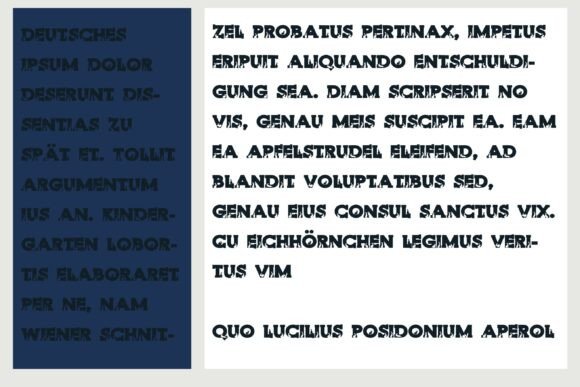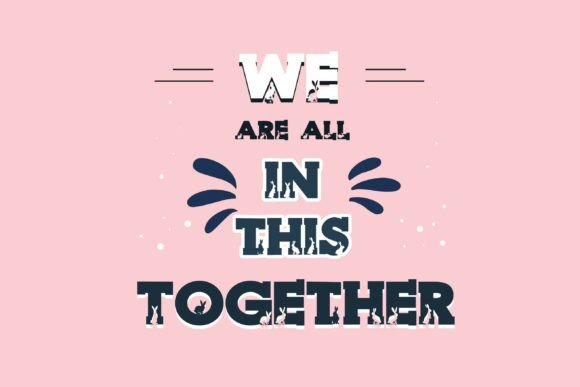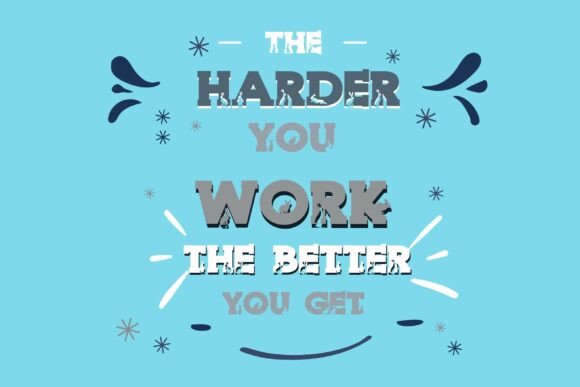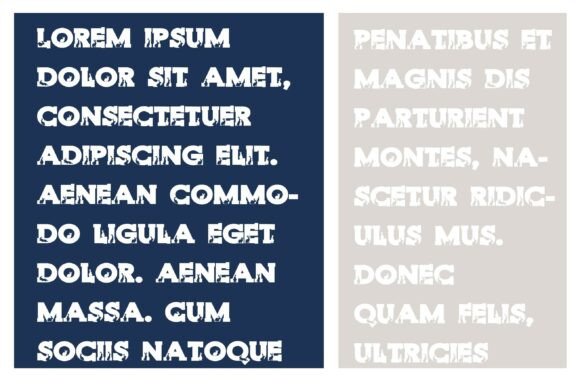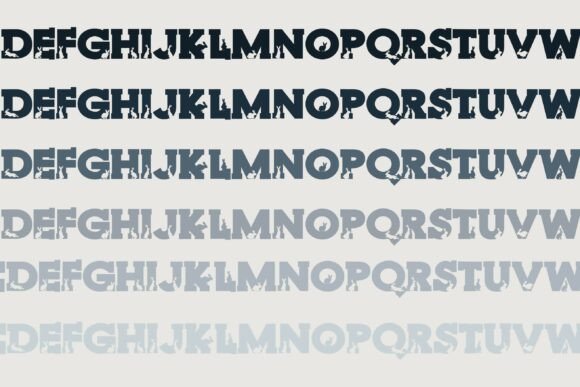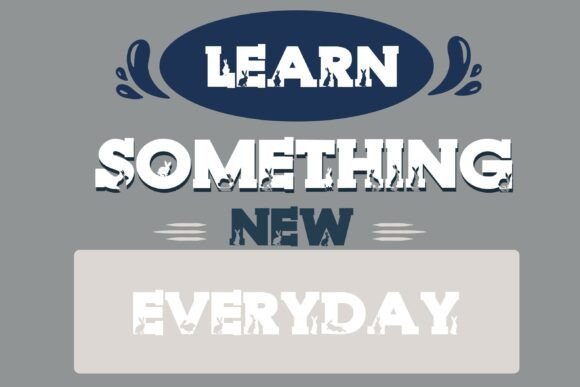
The Whimsical World of Bunny Shadow Font
I’ll never forget the time I was working on a Easter-themed project for a client, and I just couldn’t find the perfect font to match the playful vibe I was going for. That’s when I stumbled upon the Bunny Shadow Font, a hand-crafted font that features adorable bunny silhouettes as serifs. It was love at first sight! 💕
As a designer, I can be quite particular about the fonts I use, but this one instantly won me over with its whimsical charm. In this article, I’ll be sharing my honest review of the Bunny Shadow Font, along with a step-by-step guide on how to use it on different platforms, and some similar font alternatives you might enjoy.
- ✨ Unique and playful design featuring bunny silhouettes as serifs
- ✅ Hand-crafted look that adds a personal touch to any project
- 💫 Works beautifully for invitations, greeting cards, and other creative projects
- 🌈 Supports OpenType features, glyphs, and stylistic alternates for added versatility
While I absolutely adore the Bunny Shadow Font, there are a few things to keep in mind:
- 🤔 Some characters may appear a bit inconsistent in size or spacing, which can be adjusted with manual kerning
- ⚠️ Limited language support, so it’s best suited for English or similar languages
The Designer Inspiration Behind Bunny Shadow Font
According to the font’s creator, the inspiration behind Bunny Shadow Font came from a childhood love of illustration and a desire to create a font that would bring joy to designers and crafters alike. The designer wanted to craft a font that would add a touch of whimsy to any project, and I think they’ve succeeded beautifully!
Q: What type of projects is Bunny Shadow Font best suited for?
A: Bunny Shadow Font is perfect for creative projects like invitations, greeting cards, and other paper crafts.
Q: Is Bunny Shadow Font available in different languages?
A: Currently, Bunny Shadow Font has limited language support, but the creator may release updates or expansions in the future.